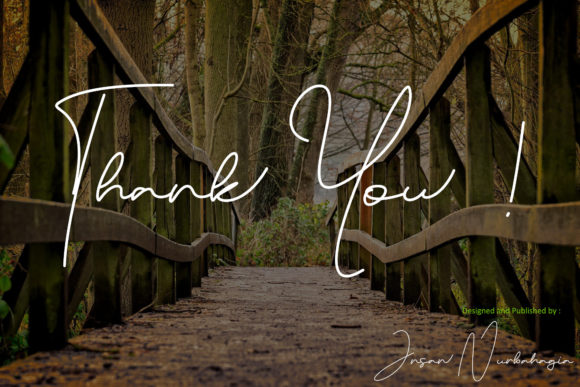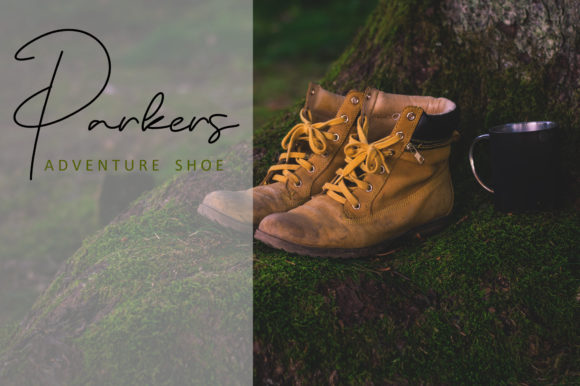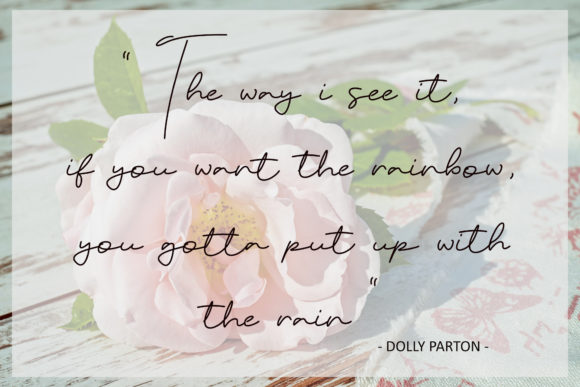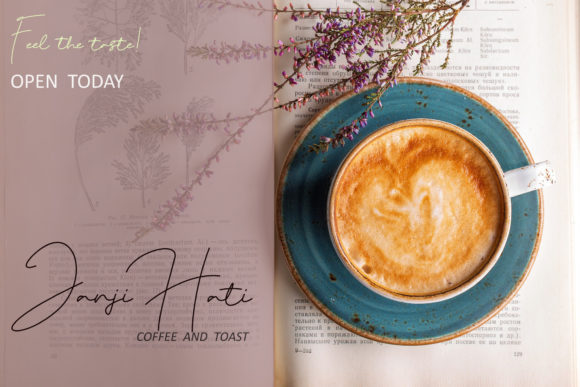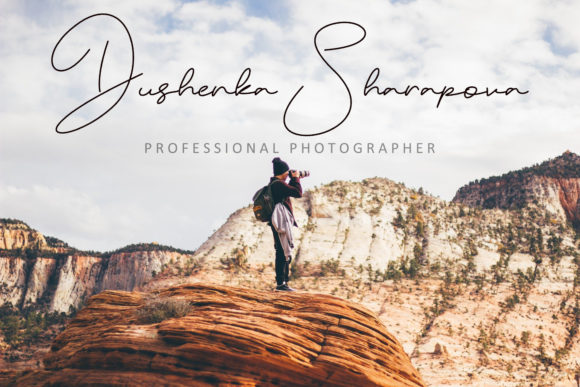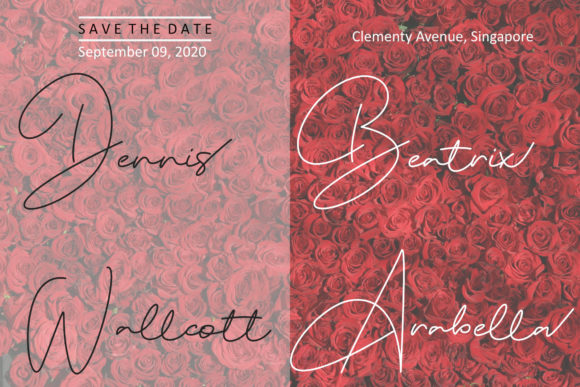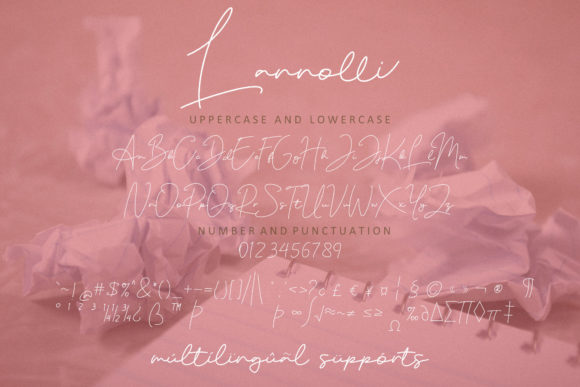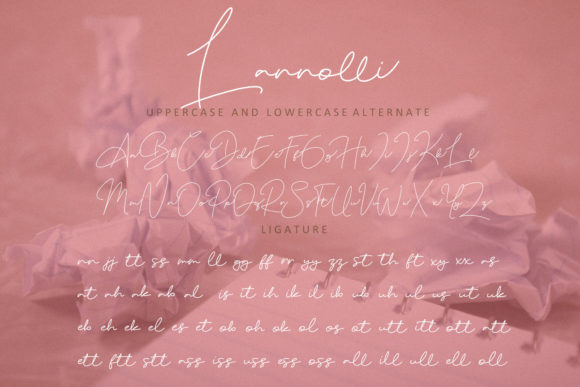
Lannolli Font
About Lannolli Font
Lannolli is a playful and modern script font, created with a touch of elegance. It looks stunning on wedding invitations, thank you cards, quotes, greeting cards, logos, business cards and every other design which needs a handwritten touch.